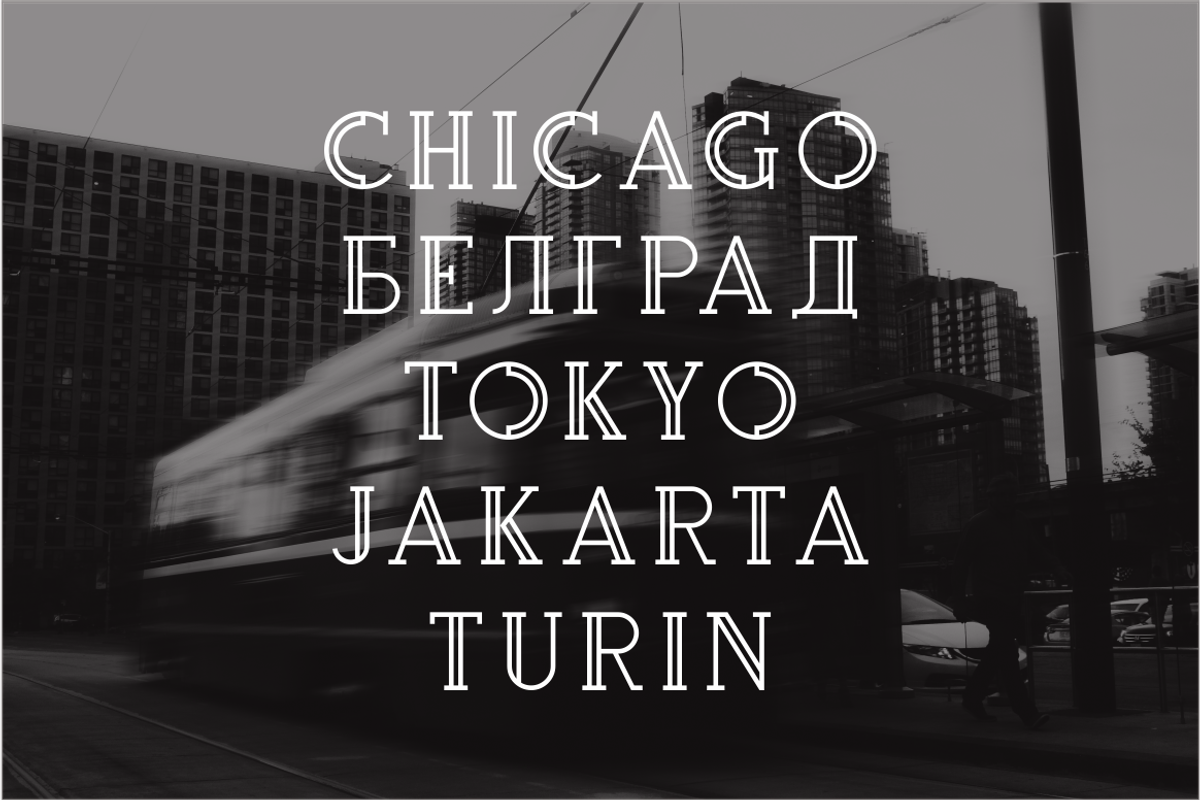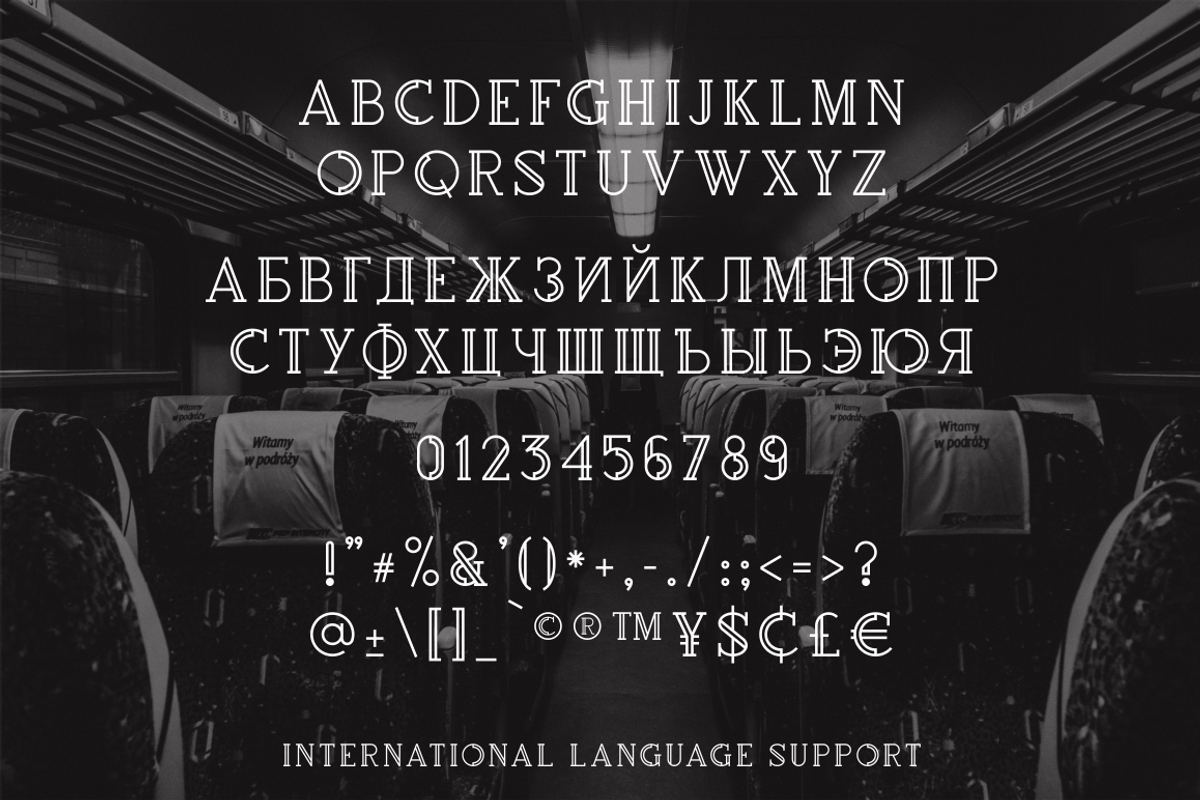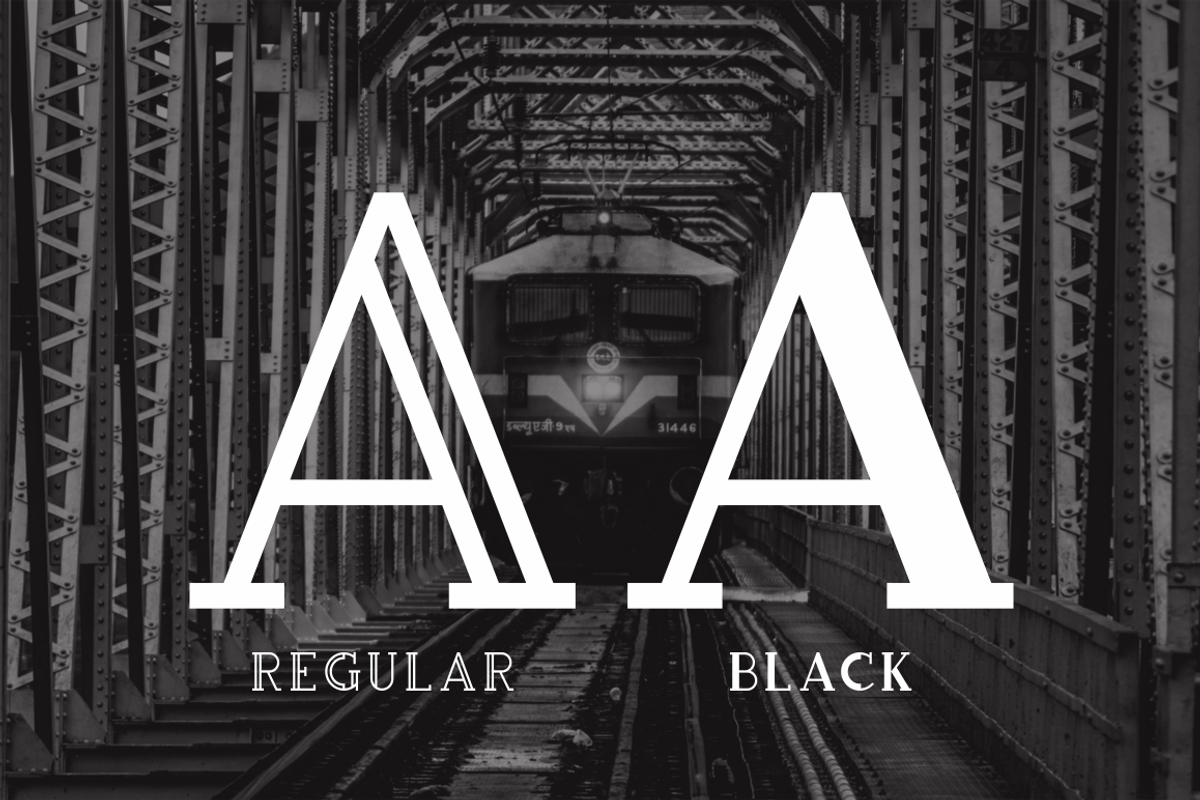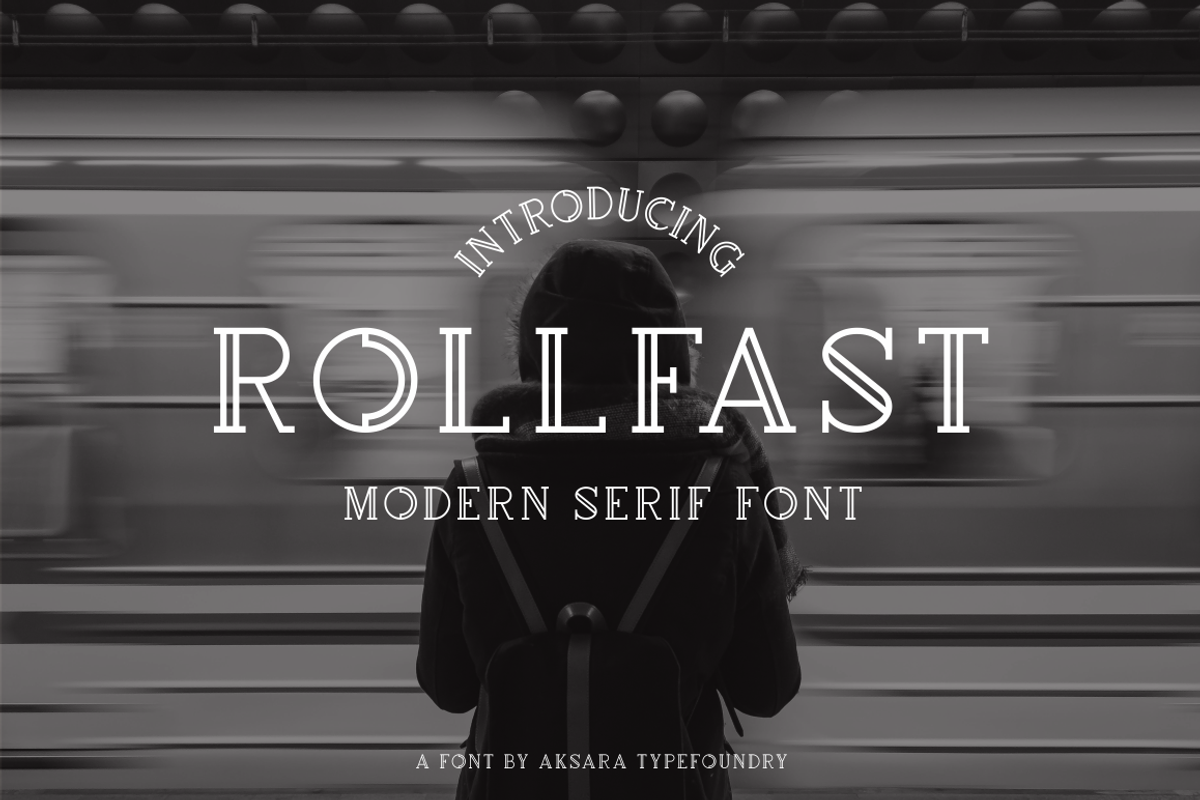
Rollfast Font
Rollfast Font by Aksara Typefoundry is a font selected for branding, posters, packaging, typography.
Why Rollfast Font is worth a look
Rollfast Font by Aksara Typefoundry fits naturally into Branding, posters, packaging, typography.